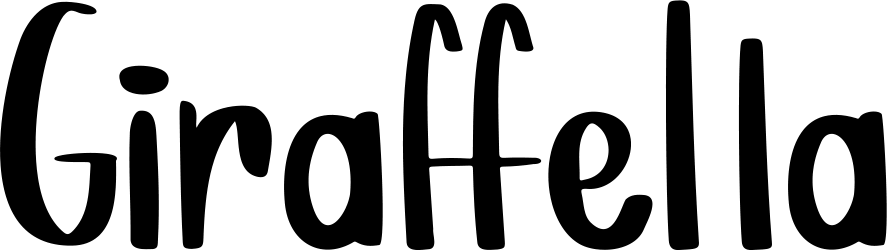
Giraffella Font
If you wish to add a nice kids-related flair to your text, or you simply fancy a playful quality for your project, leave everything to Giraffella and expect nothing less than a masterpiece.
Its tall and rounded letterforms retain a cute handwritten style that makes your text even more friendly than it already is. With all its interesting features, how wonderfully do you think this cartoon font works for your games, children’s books, or else? Download and find out now!